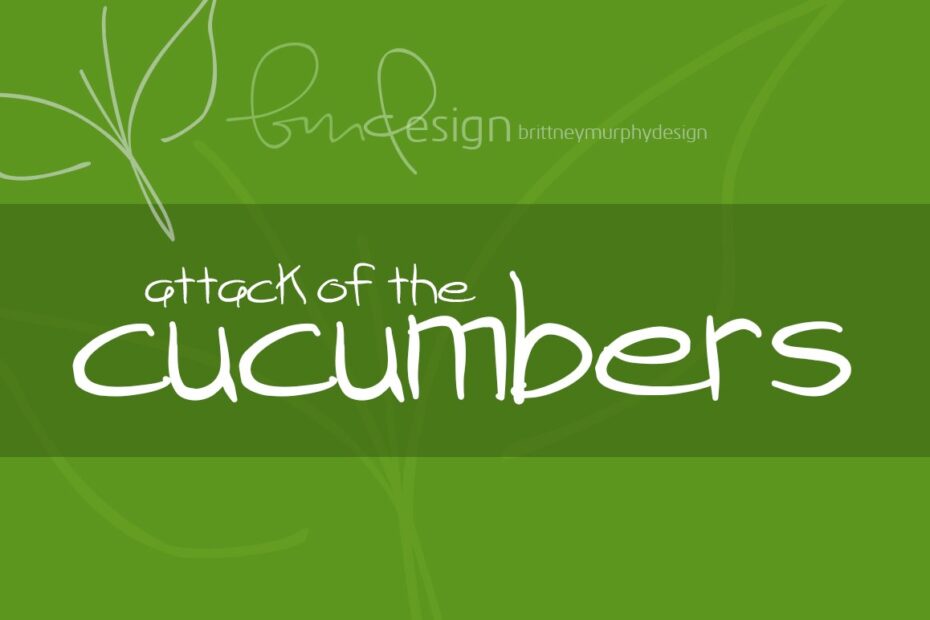
The Unpredictable World of Handwritten Fonts
Have you ever been in the middle of a creative project, and suddenly, a spark of inspiration hits you? Maybe it’s a quirky font you stumbled upon online, or a handwritten note from a friend that sparks a whole new idea. For designers, these moments can be a game-changer, and that’s exactly what happened when I discovered Attack of the Cucumbers Font.
This delightfully messy handwritten font is perfect for adding a personal touch to your designs. With its unpredictable strokes and quirky charm, Attack of the Cucumbers Font is sure to bring a smile to your face and add some much-needed whimsy to your projects. Whether you’re a seasoned designer or just starting out, this font is a valuable addition to your toolkit, offering endless possibilities for creativity and self-expression.
So, what makes Attack of the Cucumbers Font so special? For starters, its unique character and charm make it a standout in a world of sleek, modern fonts. Its imperfections and quirks are what make it so lovable, and its versatility means it can be used in a wide range of projects, from branding to typography.
Key Features of “Attack of the Cucumbers Font”
- Size: The font family includes 8 different font weights (Thin, Light, Regular, Medium, Bold, Heavy, Black, and Outline) to cater to various design needs.
- Unique Characteristics: Features a quirky, playful design with hand-drawn elements and irregular shapes, perfect for adding a touch of whimsy to digital and print projects.
- Language Support: Supports multiple languages, including Latin-based alphabets, Cyrillic, and Greek, making it suitable for a wide range of international projects.
- Font Width: Has a medium to wide width, allowing for clear readability and making it suitable for body text, headings, and titles.
Attack of the Cucumbers Font Review
Overall, I was a bit skeptical when I first downloaded Attack of the Cucumbers Font, but it’s grown on me. Here’s what I think works well:
- ✨ Unique and quirky design: The font’s playful vibe is infectious, and it’s perfect for projects that need a bit of whimsy.
- ✨ Great for headlines and titles: The font’s bold lines and contrasting weights make it ideal for grabbing attention.
- ✨ Supports a range of languages: I was pleasantly surprised to find that it supports a wide range of languages, making it a great choice for international projects.
- ⚠️ Limited character set: While it supports a range of languages, the font’s character set is a bit limited, which can make it tricky to work with in certain situations.
- ⚠️ Not ideal for body text: The font’s unique design can make it difficult to read in large blocks of text, so it’s best used sparingly.
Overall, I think Attack of the Cucumbers Font is a great choice for designers looking for a bold, playful font. While it may have some limitations, its unique design and versatility make it a great addition to any design toolbox.
Use Attack of the Cucumbers Font for humorous and playful designs, such as:
1. Food labels and packaging.
2. Social media graphics and ads.
3. Party invitations and decorations.
Remember to experiment with different font sizes and styles to get the most out of this unique font.
Alternatives to Attack of the Cucumbers Font
The Great Vibes Font is a fun and elegant script font that is perfect for creating a playful and whimsical feel. It is great for use in branding, advertising, and packaging design. This font is more polished and sophisticated compared to Attack of the Cucumbers Font, which has a more cartoonish and humorous tone.